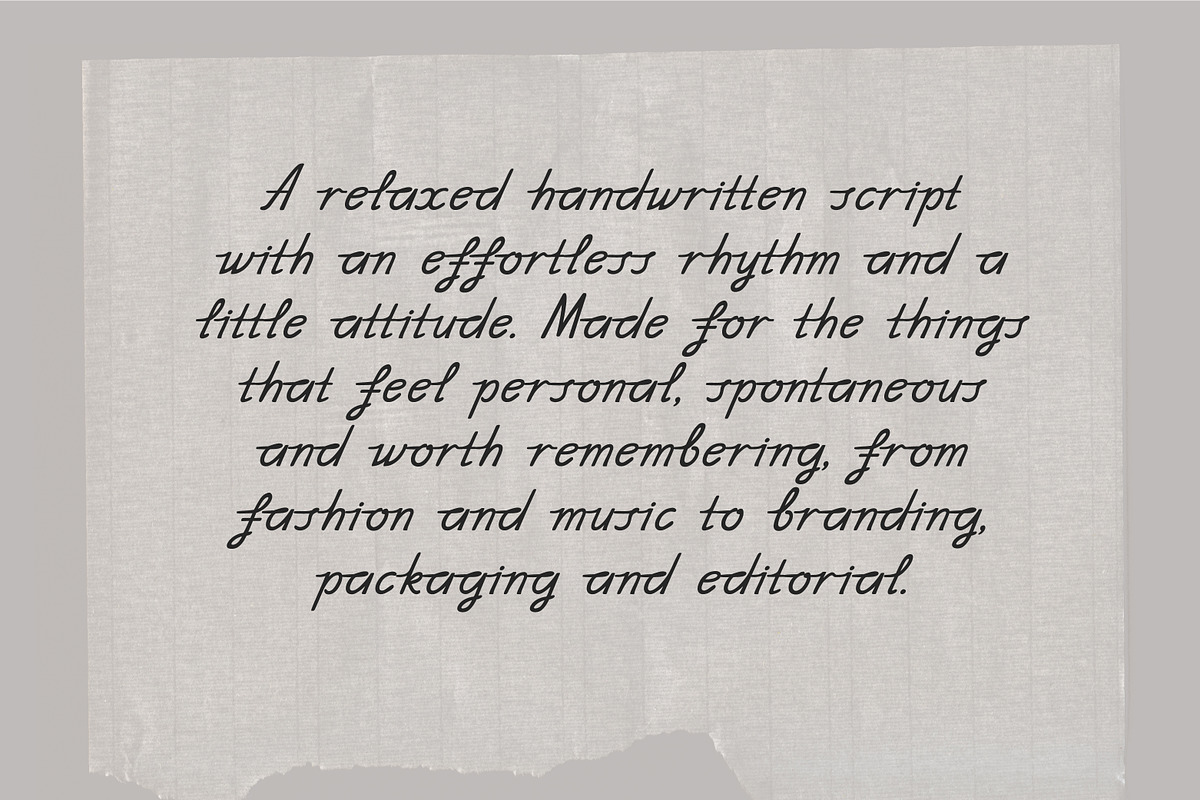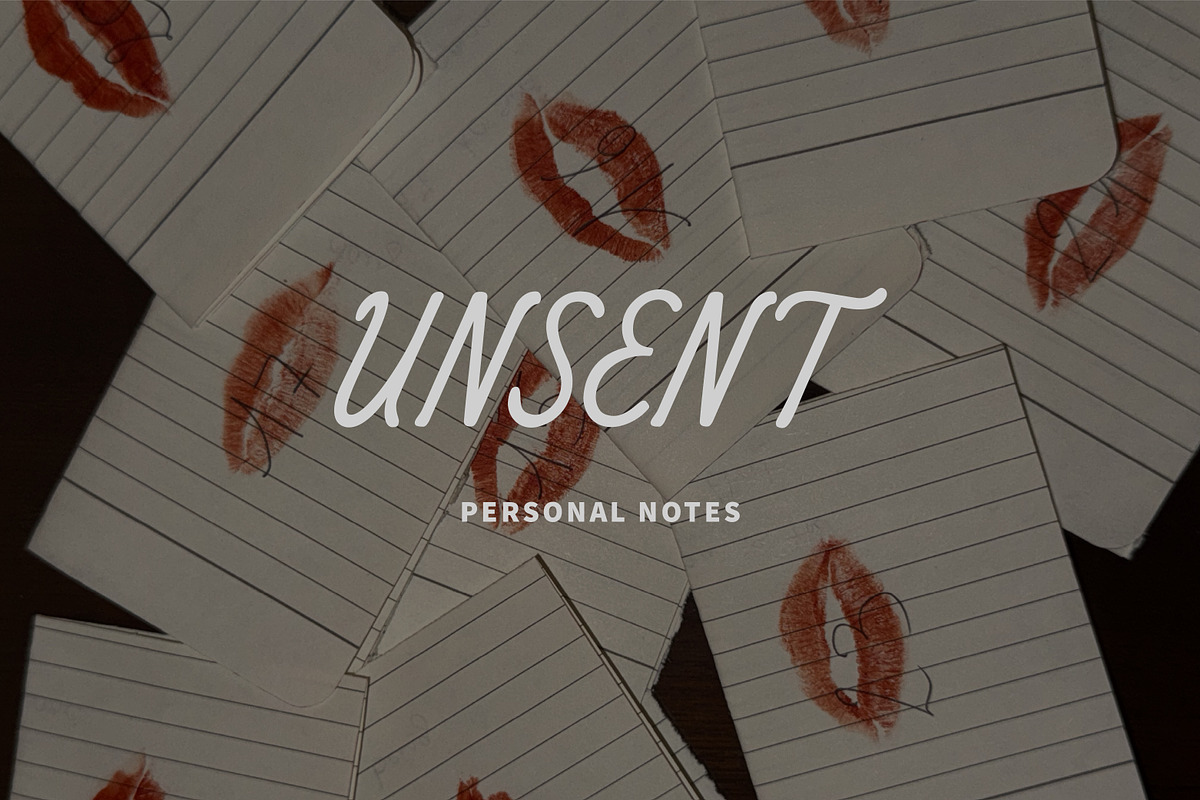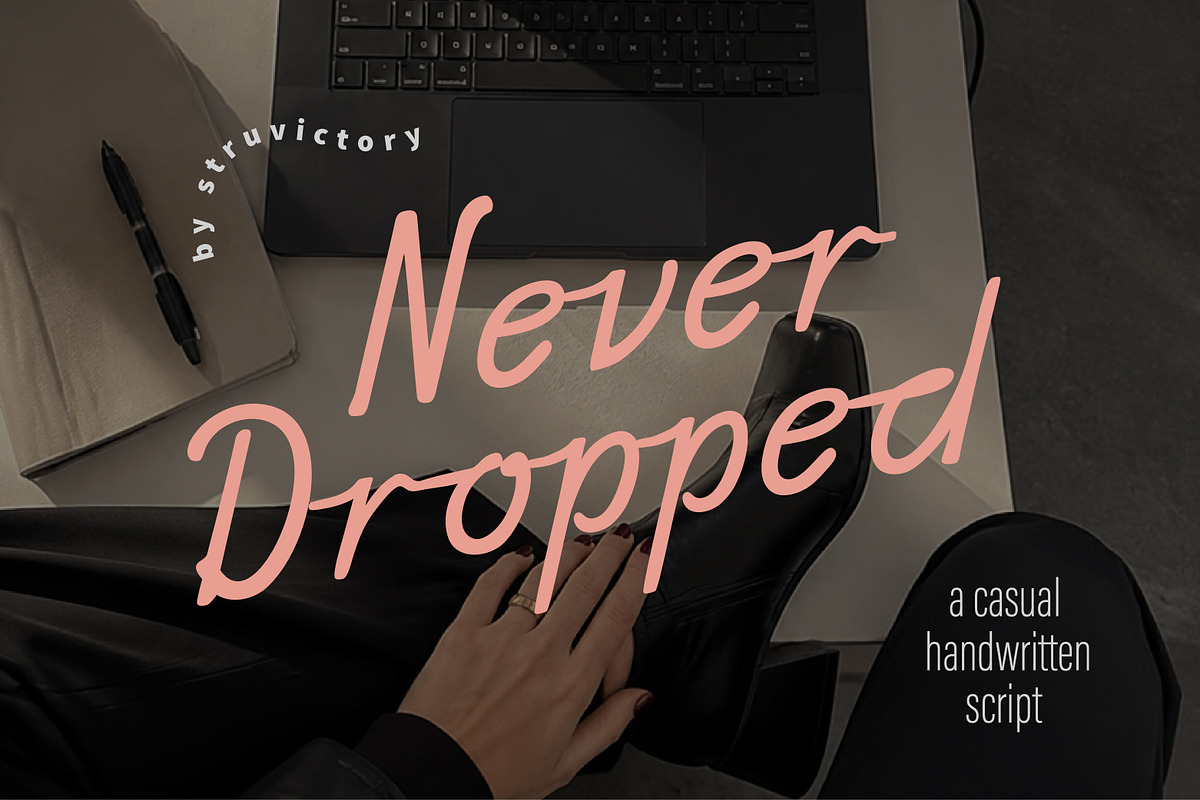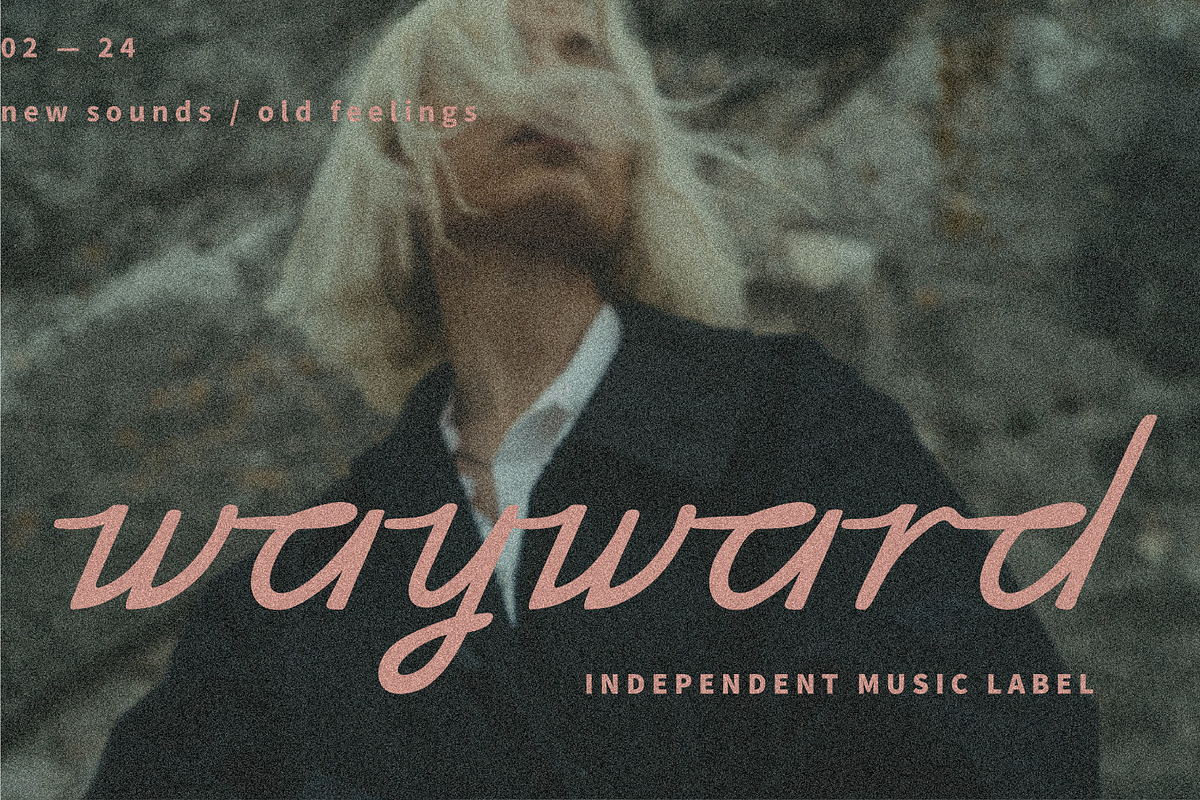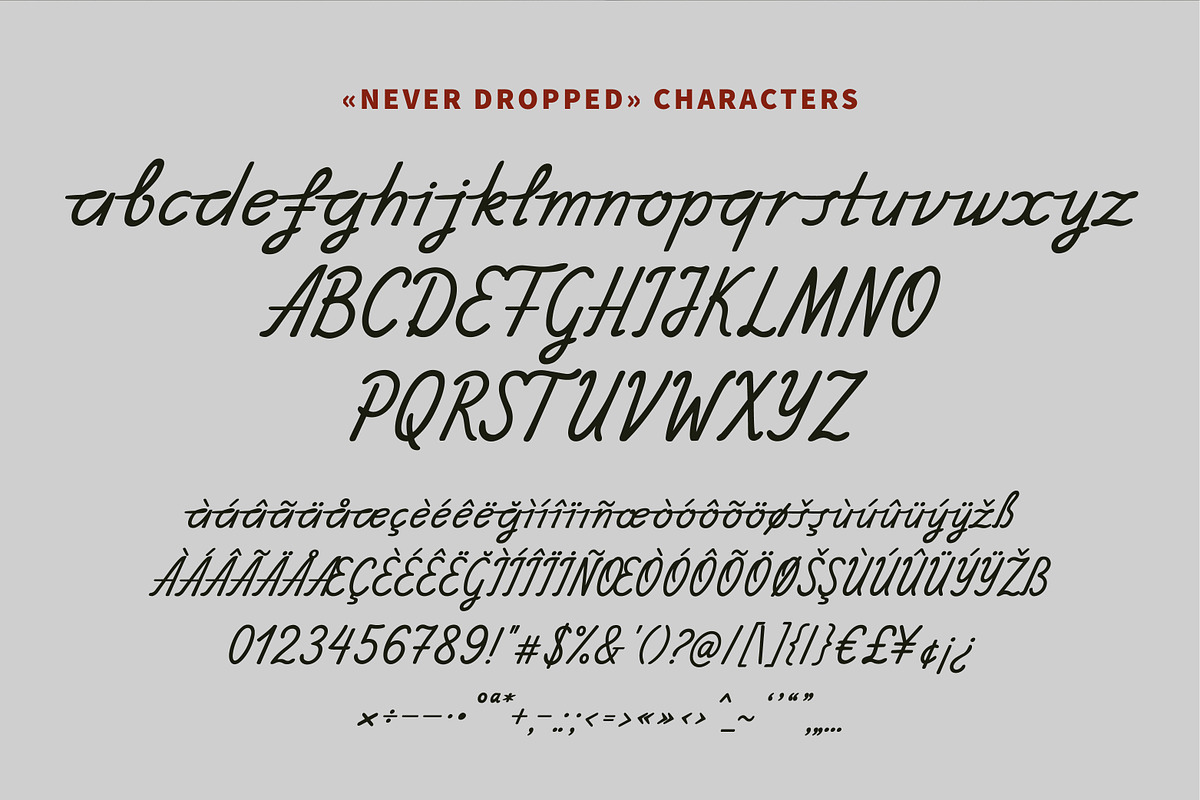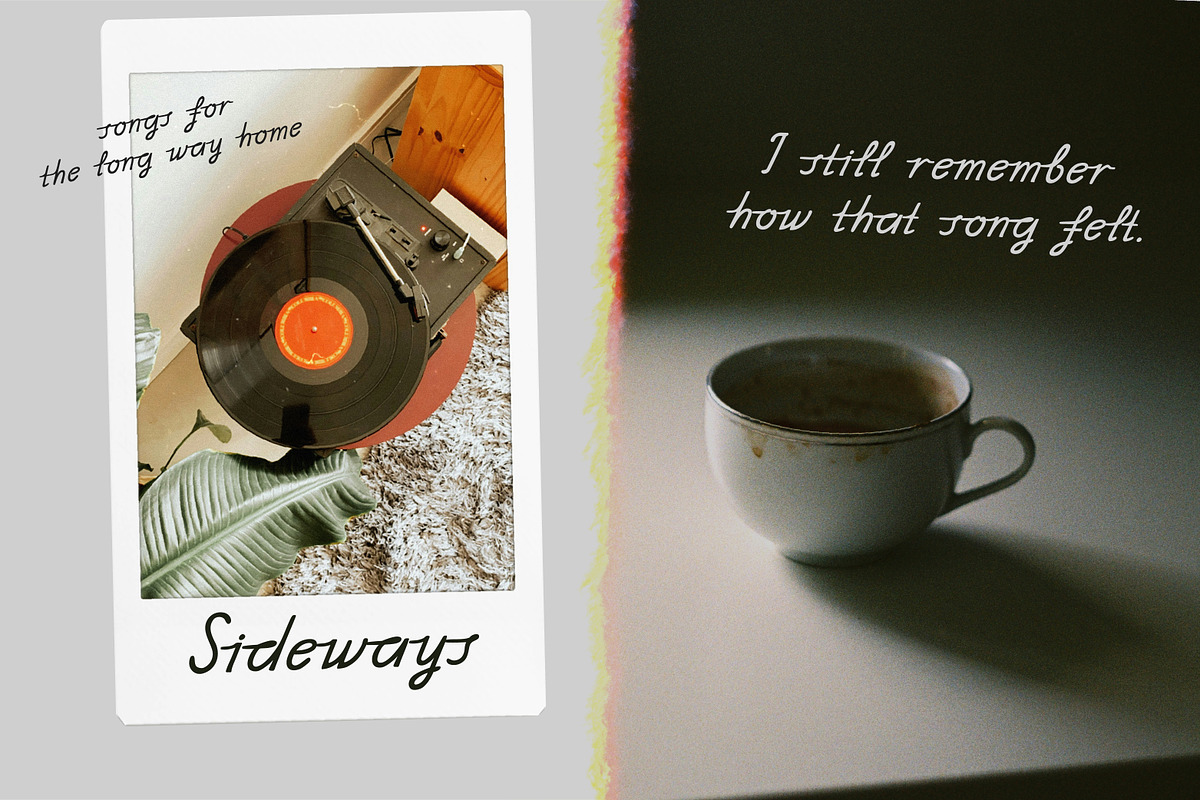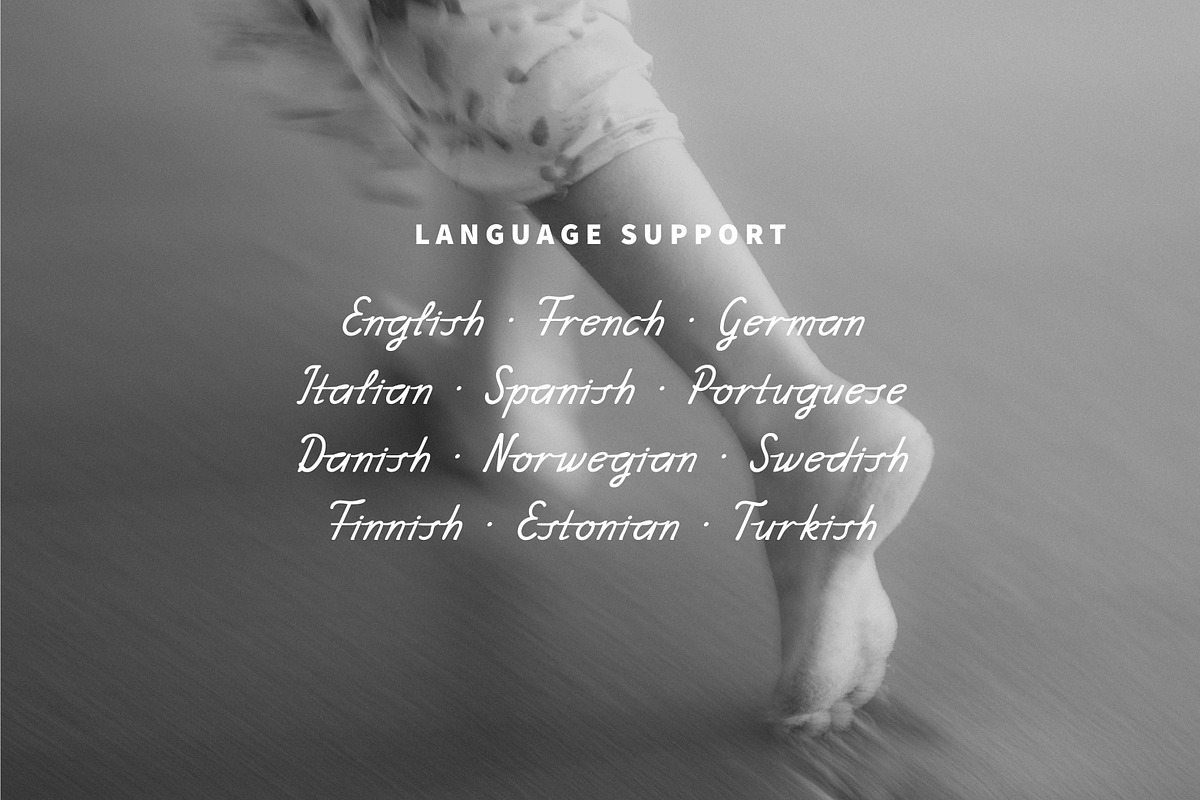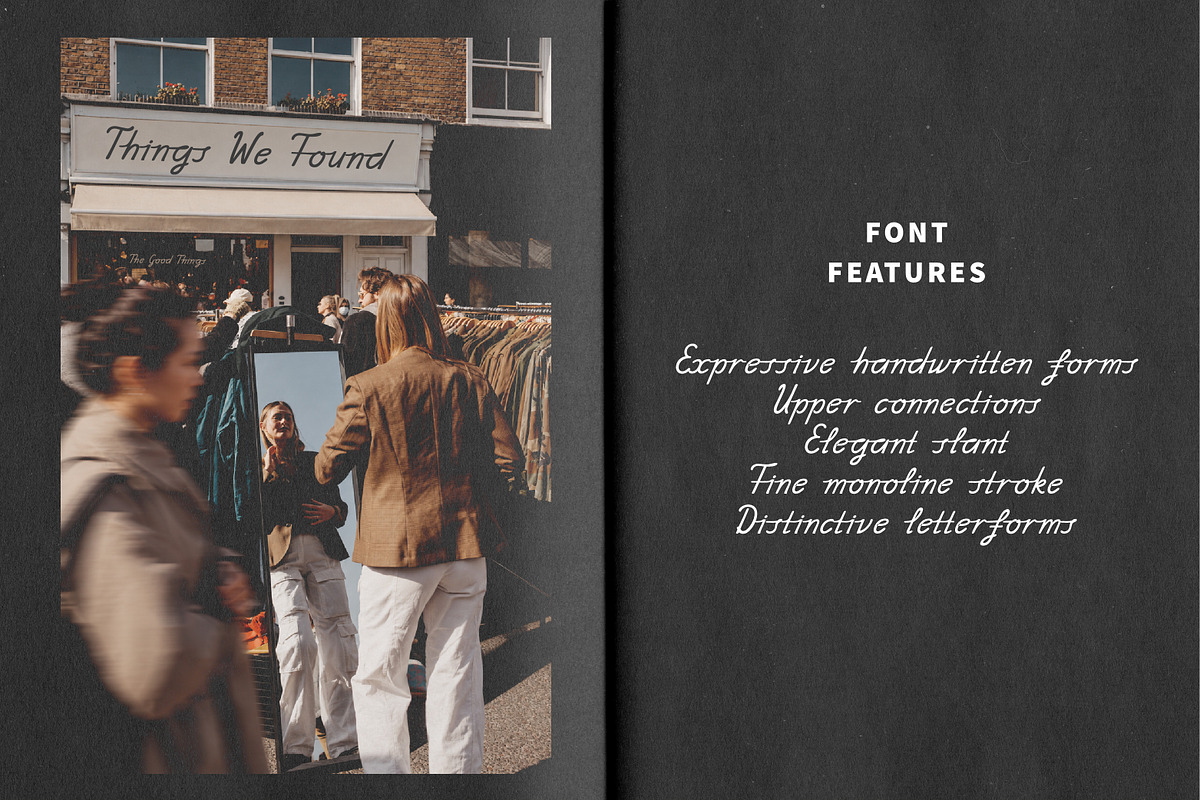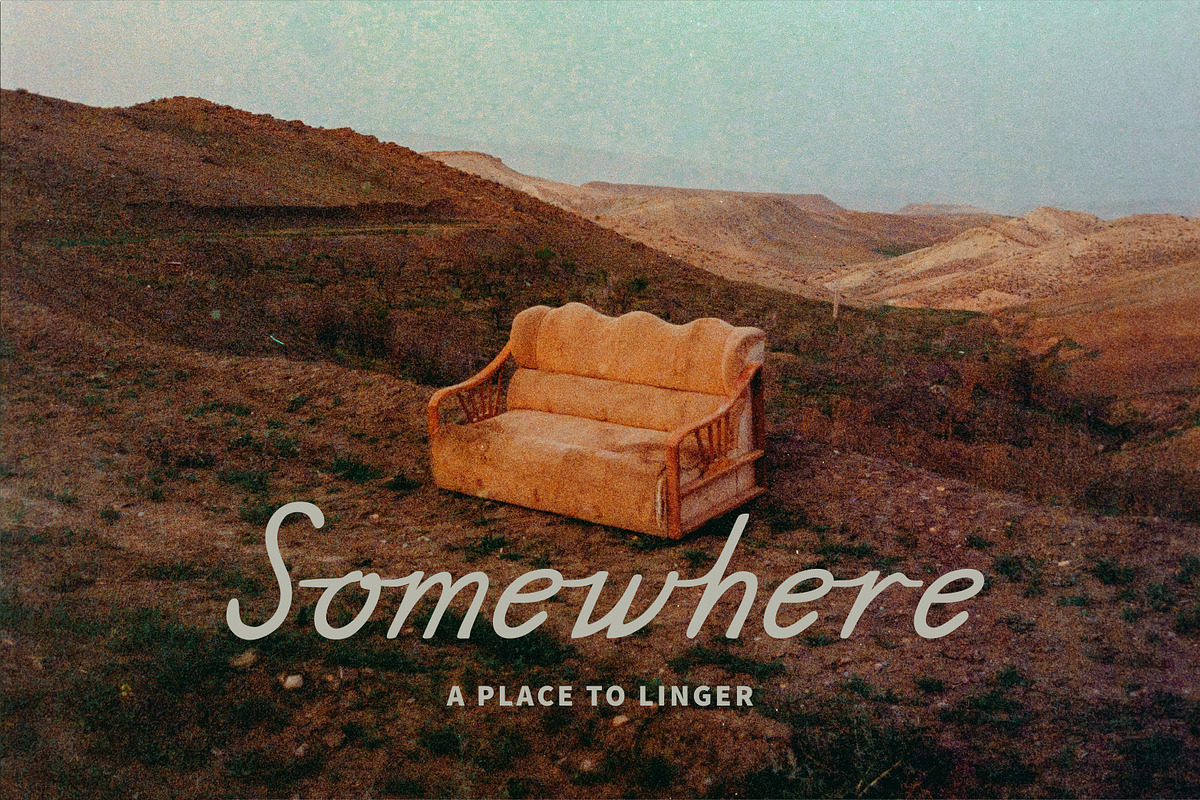
NeverDropped Handwritten Thin Script
Never Dropped is a casual handwritten script with an effortless rhythm, elegant slant, and distinctive flowing connections. Its fine monoline stroke and expressive letterforms give the typeface a natural, personal feel while keeping the overall look clean and contemporary. Designed for fashion and lifestyle branding, music projects, packaging, editorial design, posters, stationery, labels, and creative campaigns, Never Dropped works beautifully in both short statements and longer handwritten phrases.
Never Dropped supports the most popular latin-based languages, you can check the symbol you need by typing a couple of words in the font preview box.